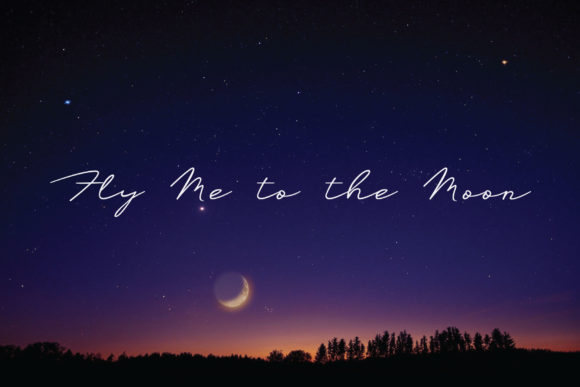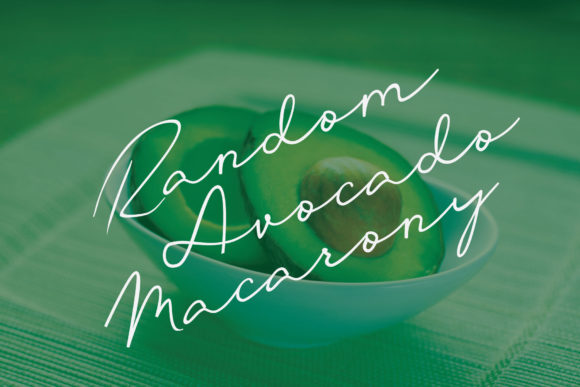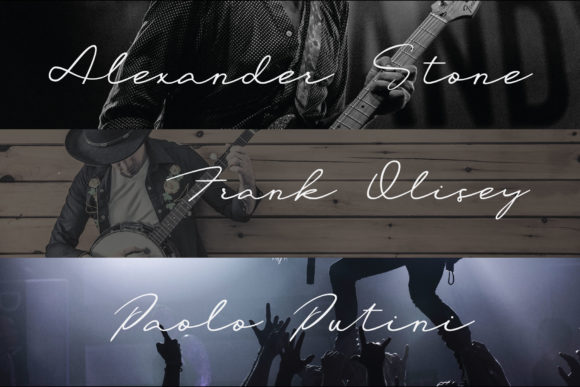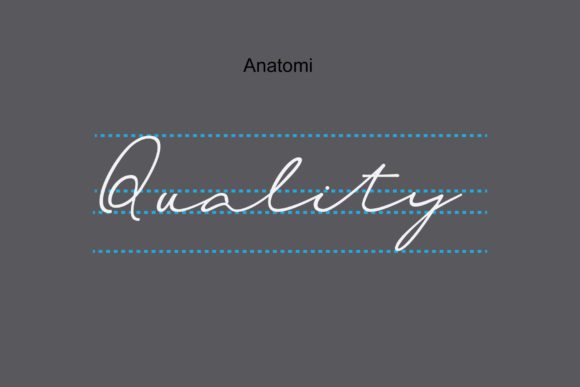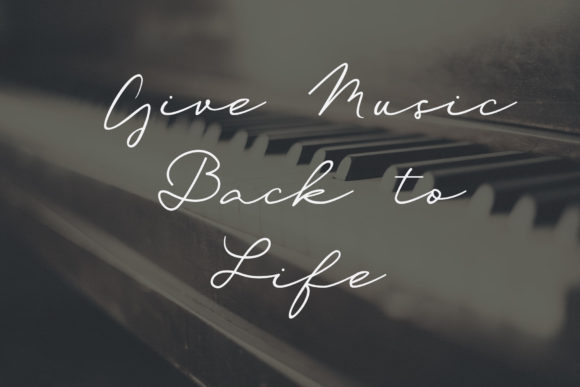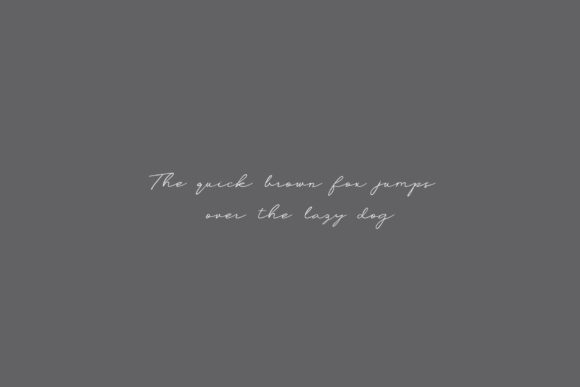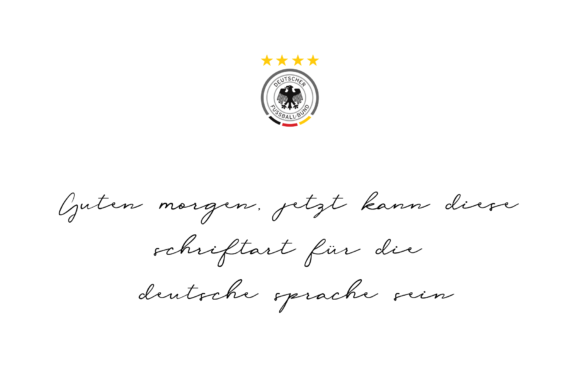
Oliver Quin Font
About Oliver Quin Font
Oliver Quin is an italic script, handwritten to give your designs a free-flowing and stylish design. With tons of harmony and balance, this font is a delightful addition to any project!